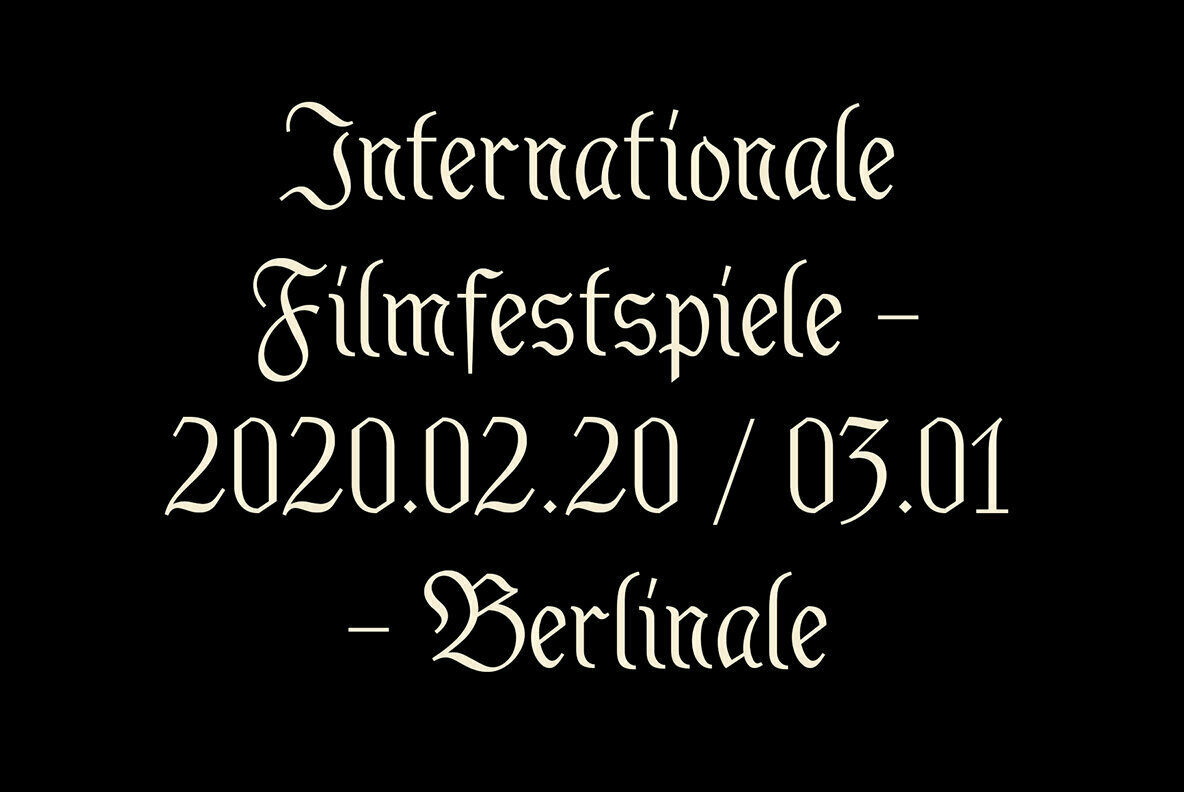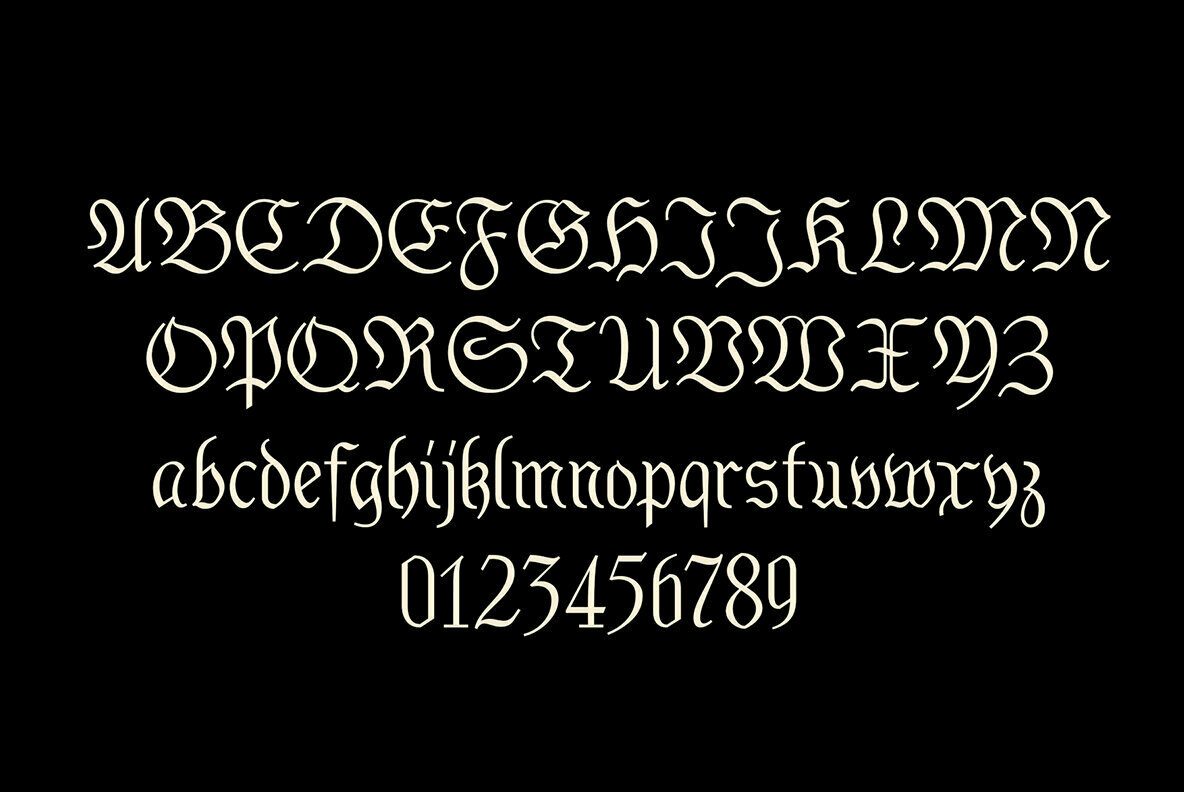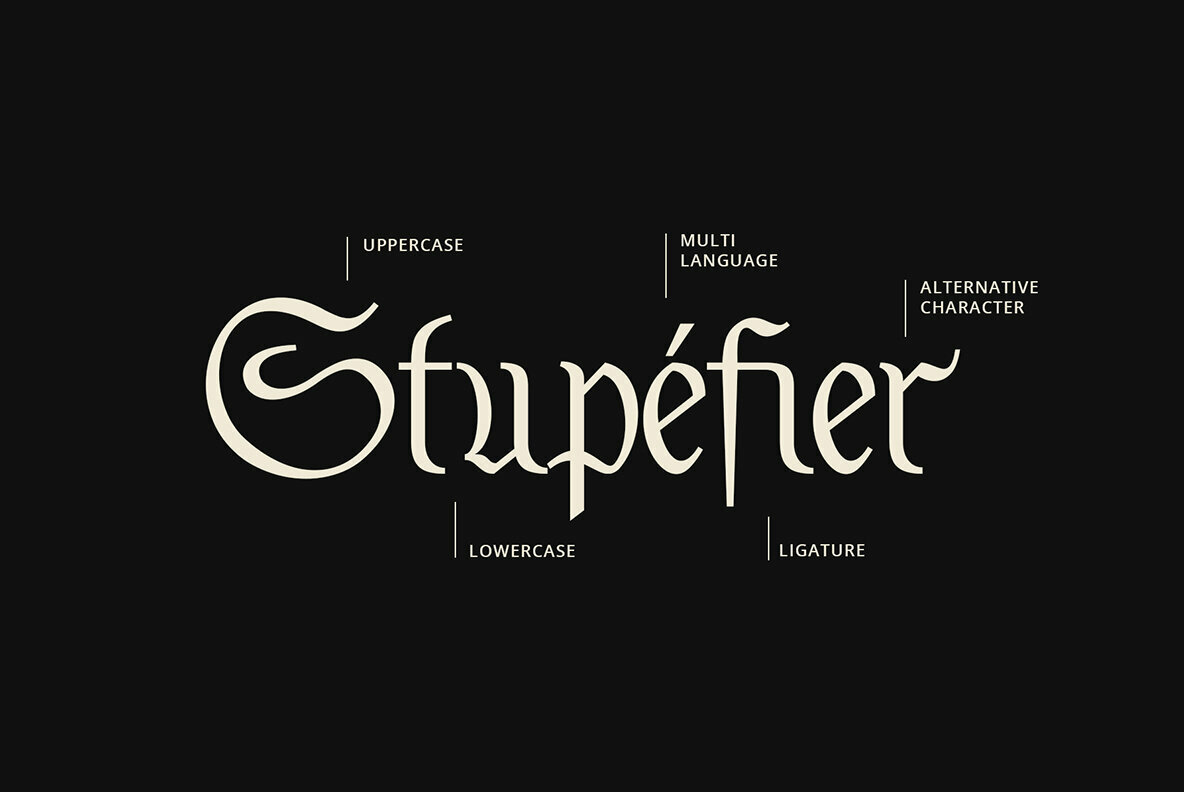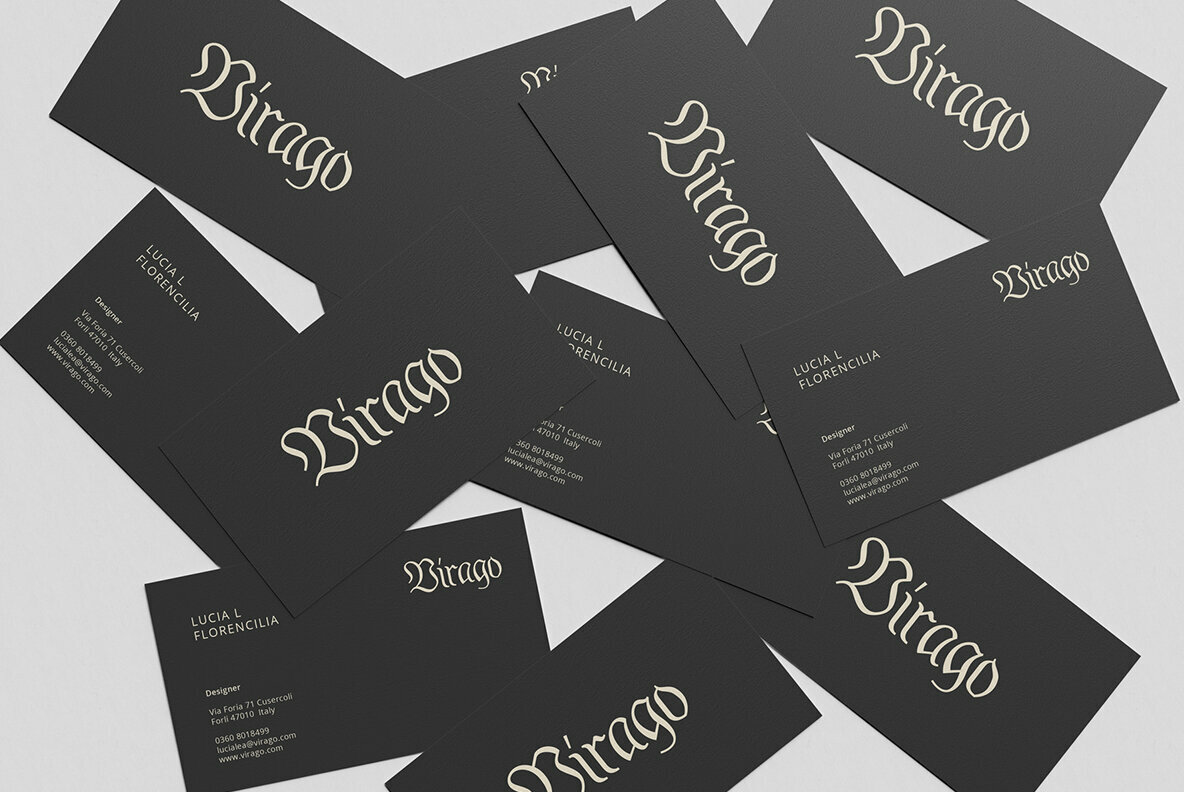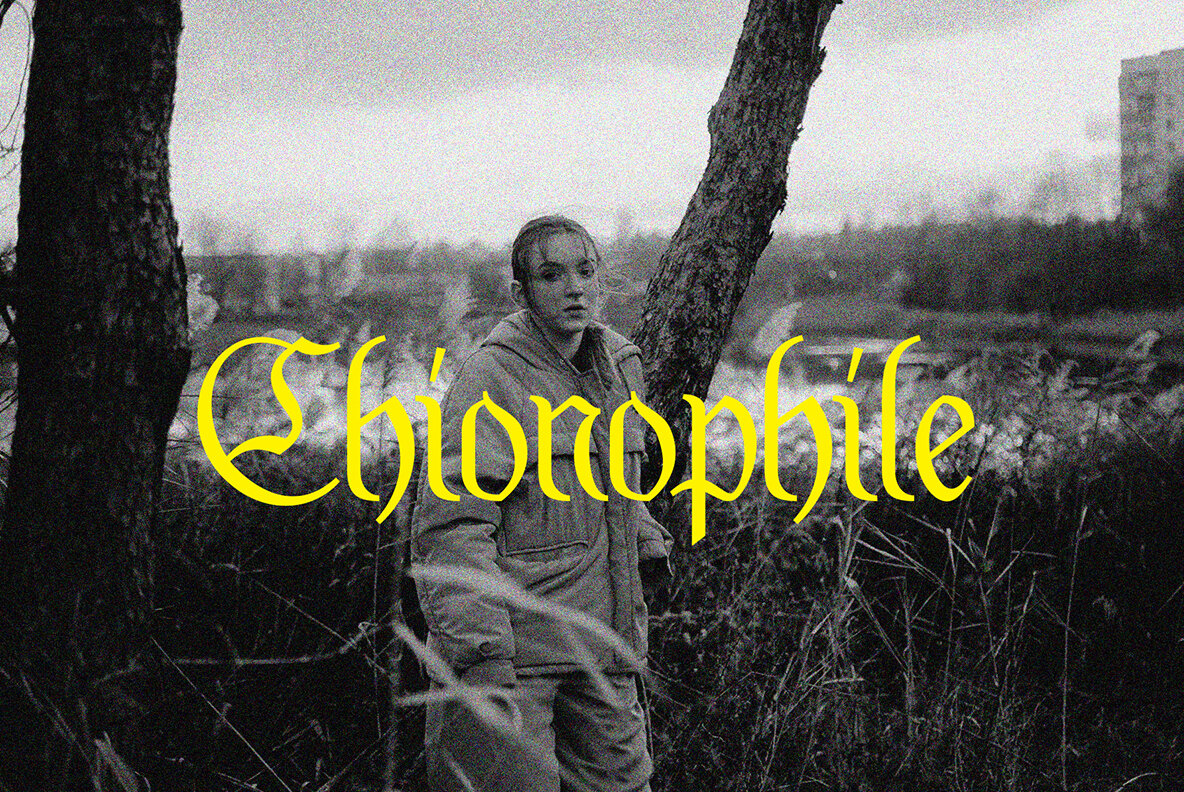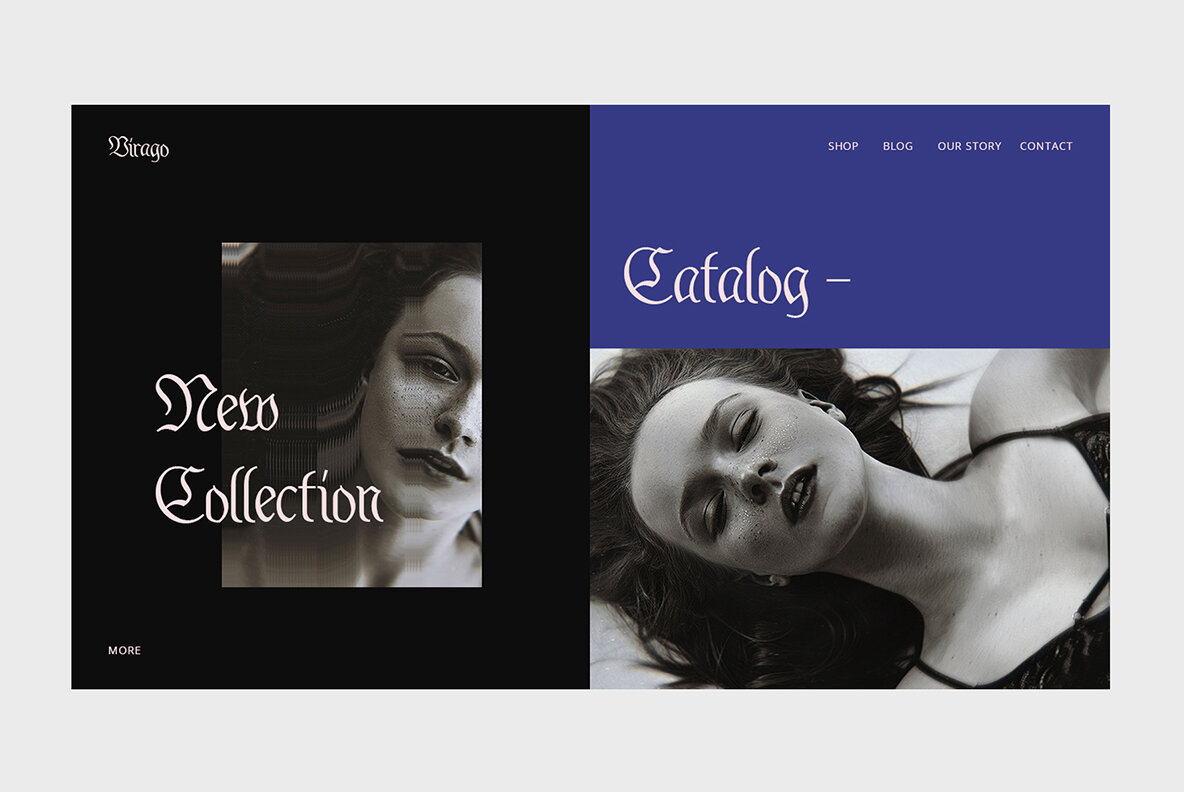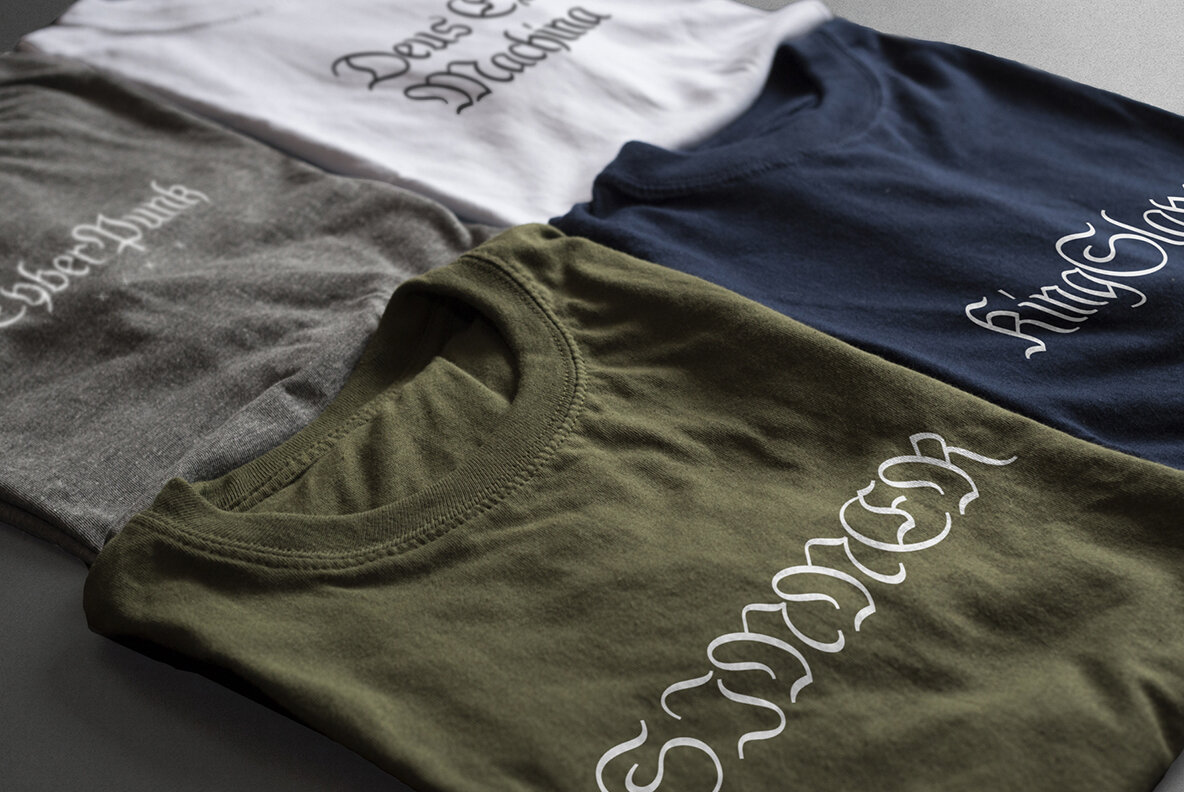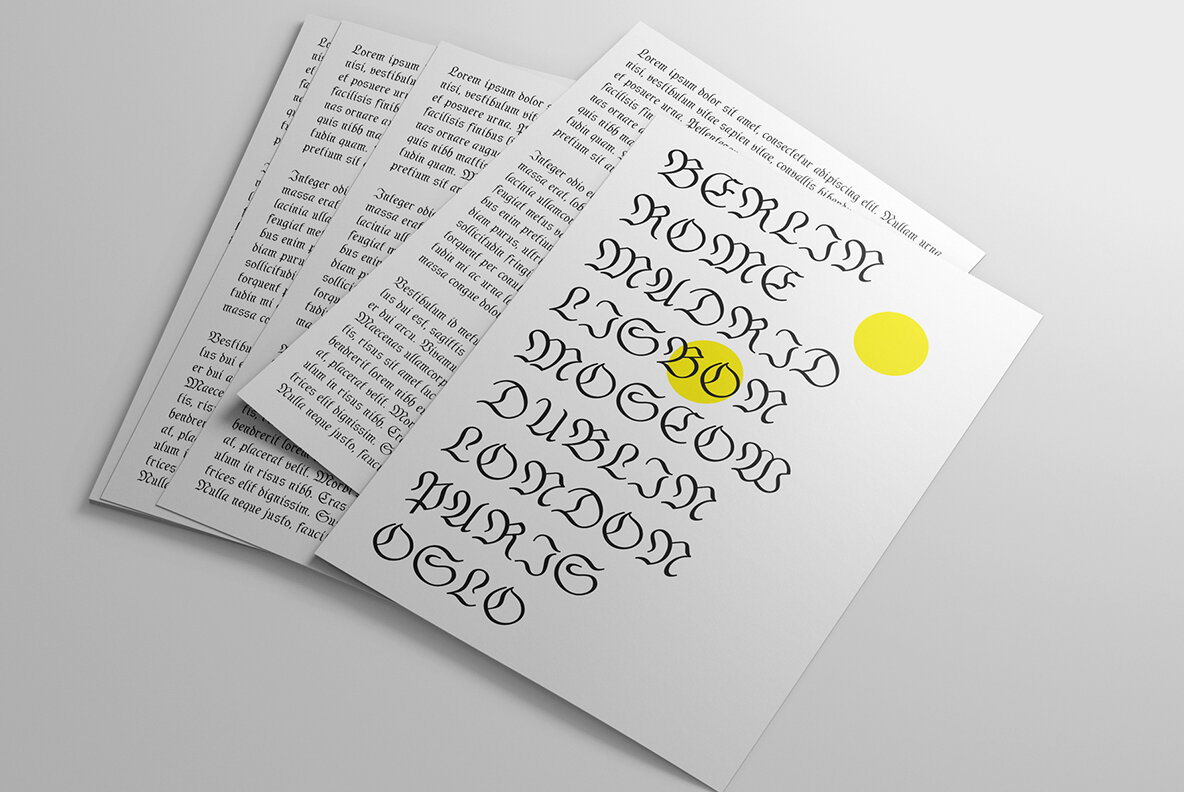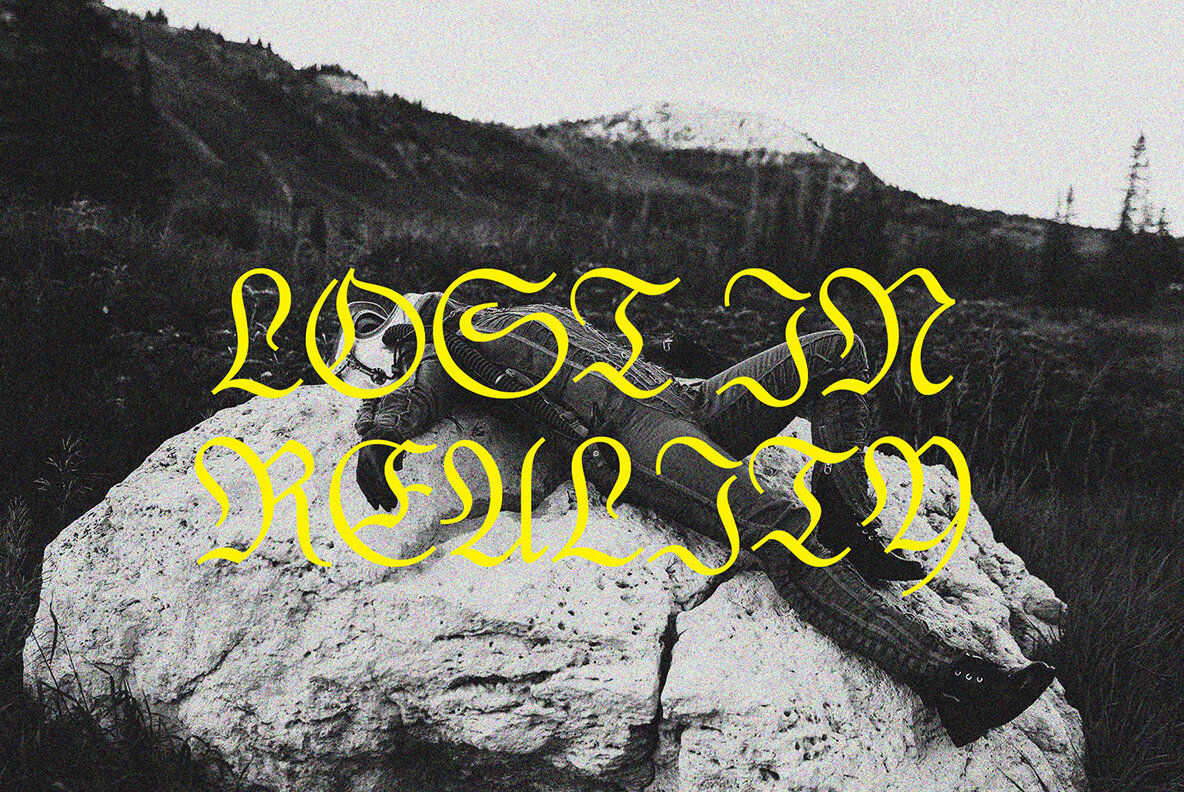
ED Vitinia Font
ED Vitinia stands as a testament to the timeless appeal of blackletter fonts. Crafted with a modern classic sensibility, this typeface channels the elegance and mystery inherent in gothic monoline writing. ED Vitinia is ideally tailored for those seeking distinctive elements for their graphic design projects.ED Vitinia: Gothic Elegance With a Modern Twist
This font suits a wide array of creative pursuits such as logo design, branding, tattoos, and posters, effortlessly capturing the essence of sophistication and historical charm.